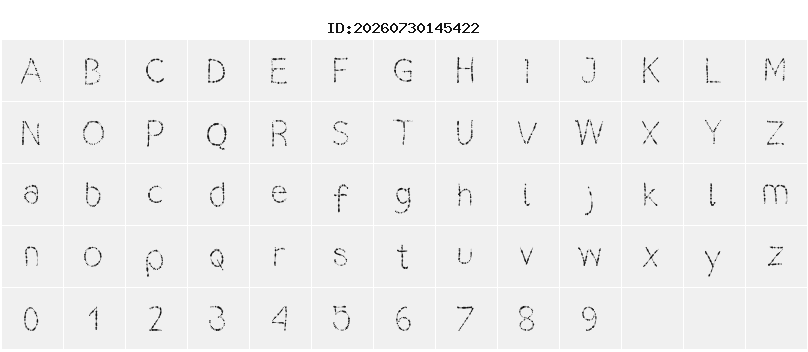
• Font Name: lilas
• Designer: hertoy
About lilas.ttf
lilas.ttf is a modern, elegant sans-serif font designed for ultimate readability and visual harmony. Perfect for branding, headlines, web design, and print materials.